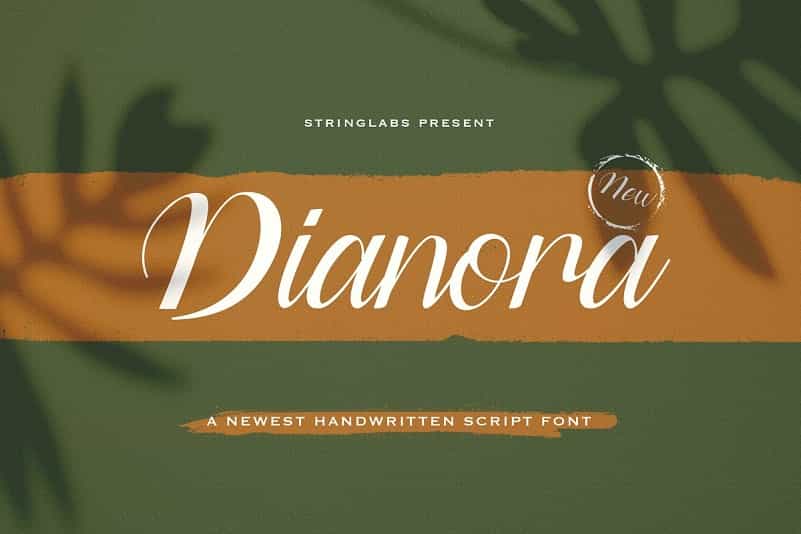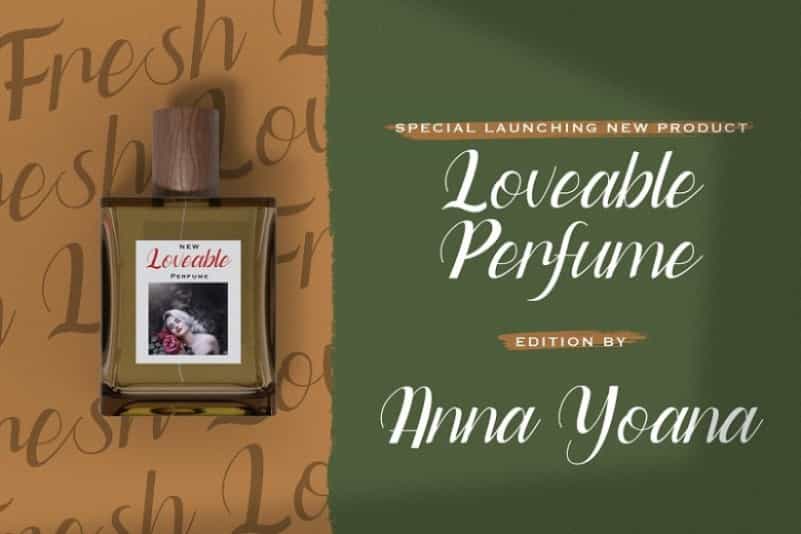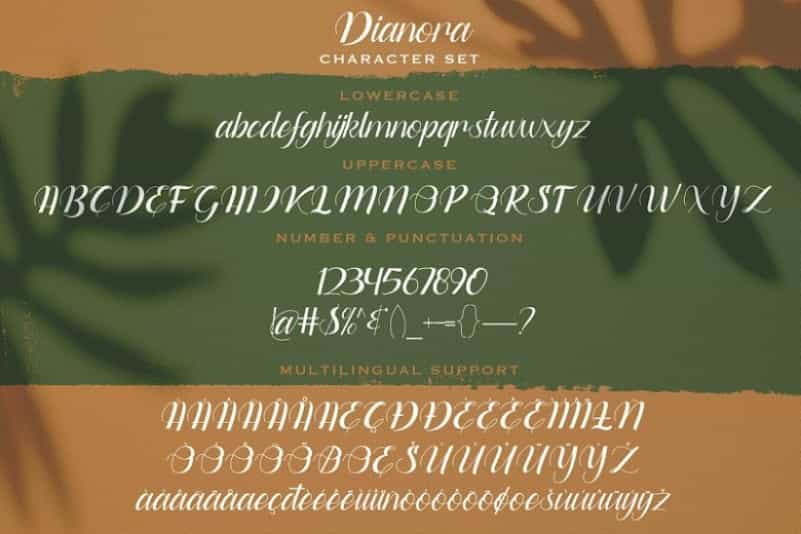
Dianora is a contemporary handwriting script font. Includes a complete set of uppercase and lowercase, alternative, ligature punctuation, numbers and multilingual support. Uses in conjunction together with Dianora Font to create stunning calligraphy designs.